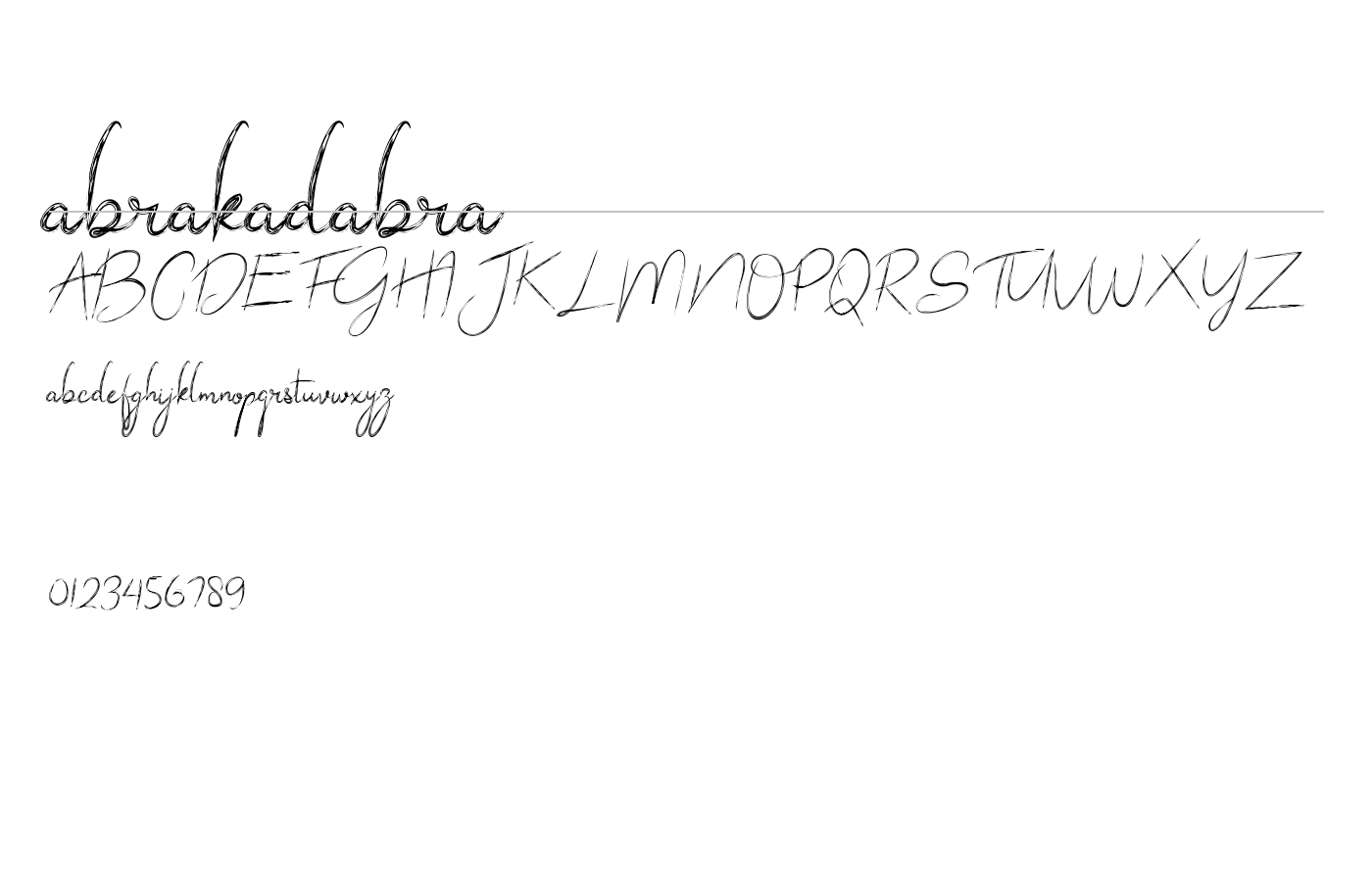
Abrakadabra is a light, delicate script font with a hand-drawn feel, featuring slender strokes and playful, slightly irregular letterforms that create a whimsical and personal touch. Its airy, casual style works beautifully for creative projects, invitations, or branding that seeks a friendly, artistic vibe with a hint of magic. This font shines best in display use, adding charm and a relaxed elegance to headlines and decorative text.
abrakadabra Font
About abrakadabra Font